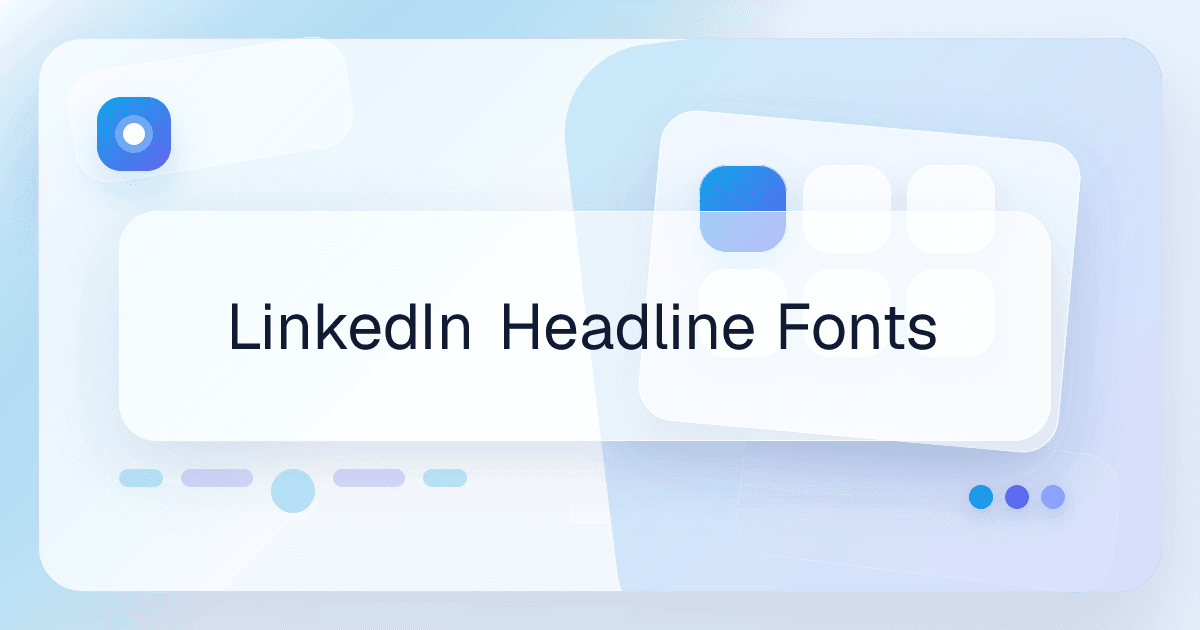
LinkedIn Headline Fonts
LinkedIn needs a more restrained style direction than entertainment-driven platforms. Clean bold, italic, and compact variants can add polish without looking unprofessional.
Profile headlines
Creator-style taglines
Personal brand positioning
Keep the result readable
Use subtle styling rather than decorative effects.
Keep role titles and keywords recognizable for search.
Test readability in profile previews before finalizing.
How to style a LinkedIn headline without overdoing it
LinkedIn headline text should stay subtle and credible. Small-caps, clean bold, and restrained italic styles usually add enough contrast without reducing trust or professionalism.
Should LinkedIn headlines use decorative fonts?
Usually no. Subtle styling is safer because the headline still needs to communicate your role and value clearly.